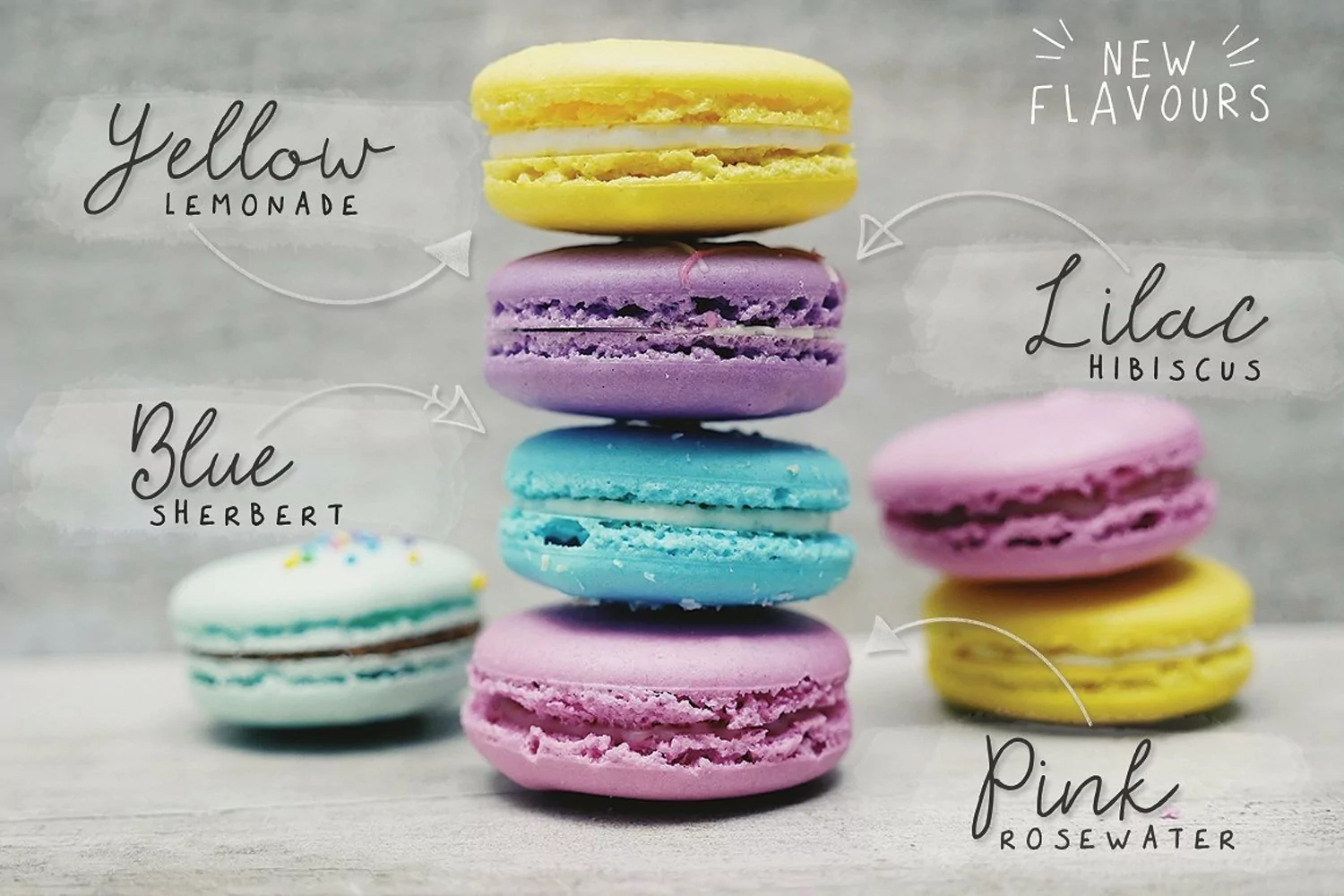
Disco Queen
Disco Queen is a fun, fabulous new font that just loves to be the centre of attention! Use it for quotes, headers or even your clients new logo design! Enjoy!Whats Included: